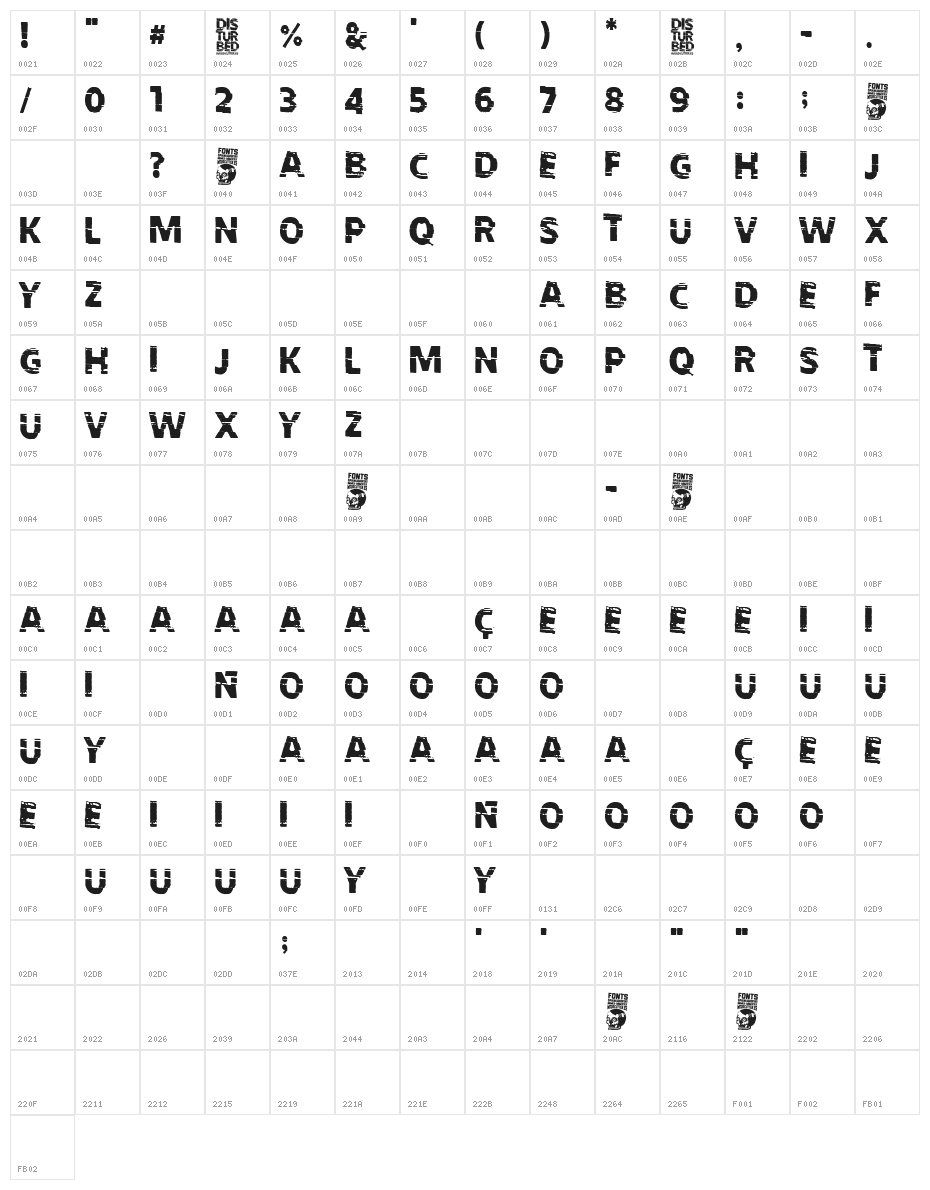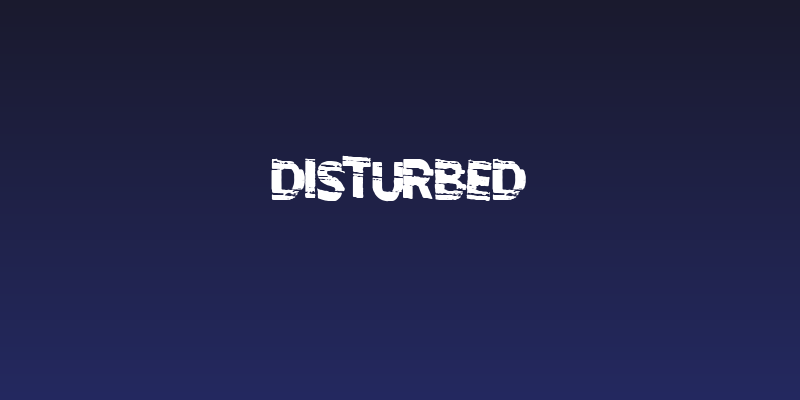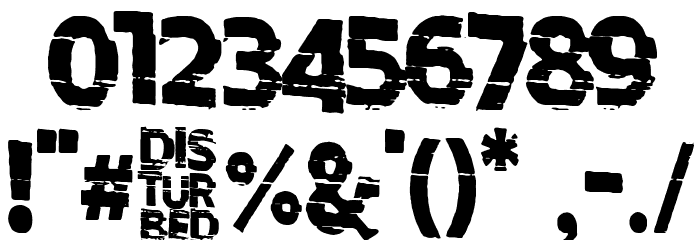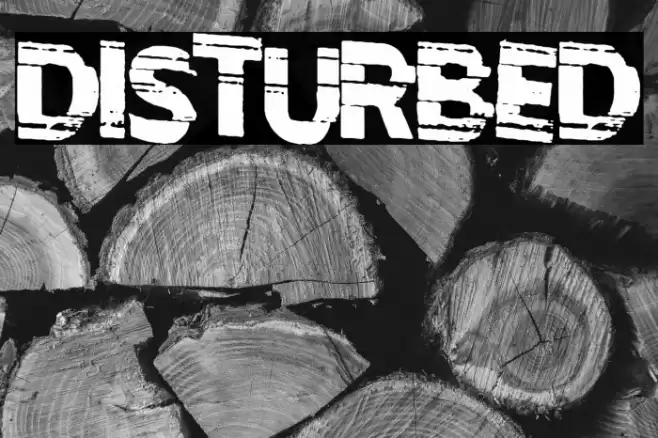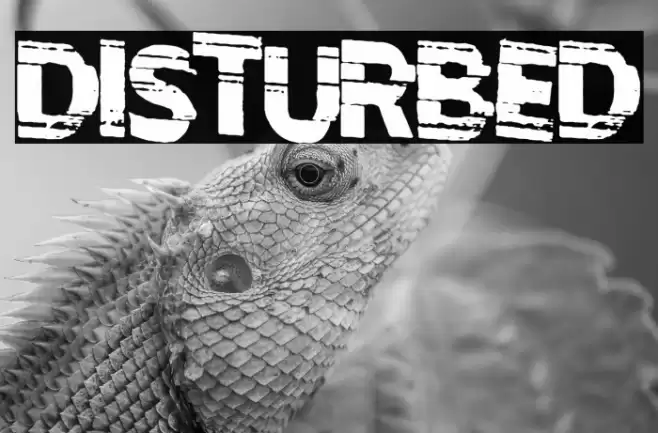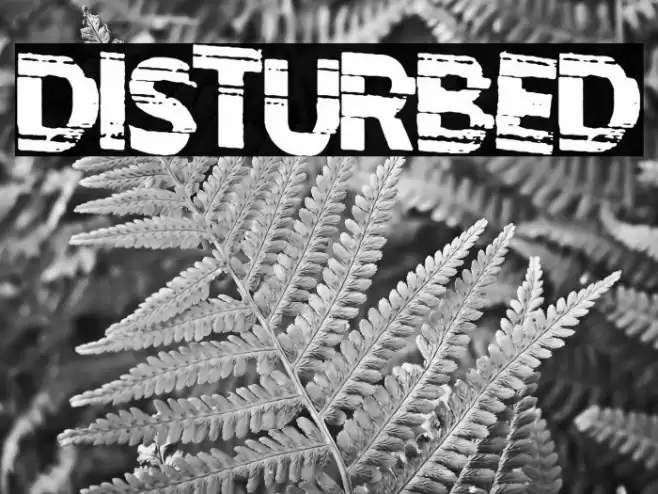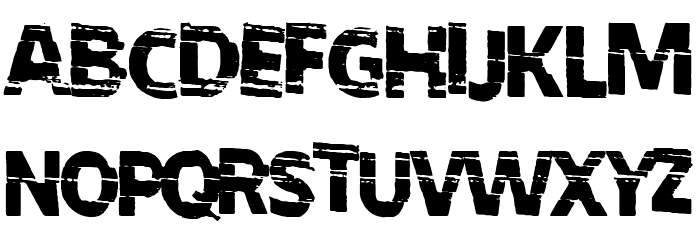
Disturbed Font
Disturbed Description
This font features a distressed, grunge style with a bold and impactful appearance. The characters are heavily textured, giving them a worn and rugged look, reminiscent of weathered surfaces or urban decay. The uppercase and lowercase letters maintain a consistent width, while the numbers and special characters follow the same distressed aesthetic. The font's design is highly decorative, making it suitable for projects that require a bold statement or an edgy, rebellious vibe. Its unique style captures attention and conveys a sense of raw, unpolished energy.
| Overall Style | Grunge, Urban, Edgy |
| Proposed Projects | Ideal for music album covers, posters, streetwear branding, or any project needing an edgy, urban look. |